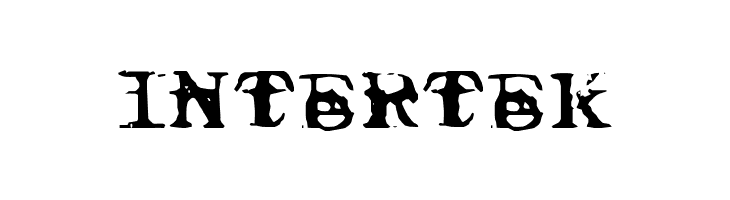
Antietam Leftalic Font
- Font: Antietam Leftalic
( Fonts by Mr Fisk - Mike Larsson - fontorama.net )
A distressed, vintage typewriter-style font with a bold, grunge aesthetic.